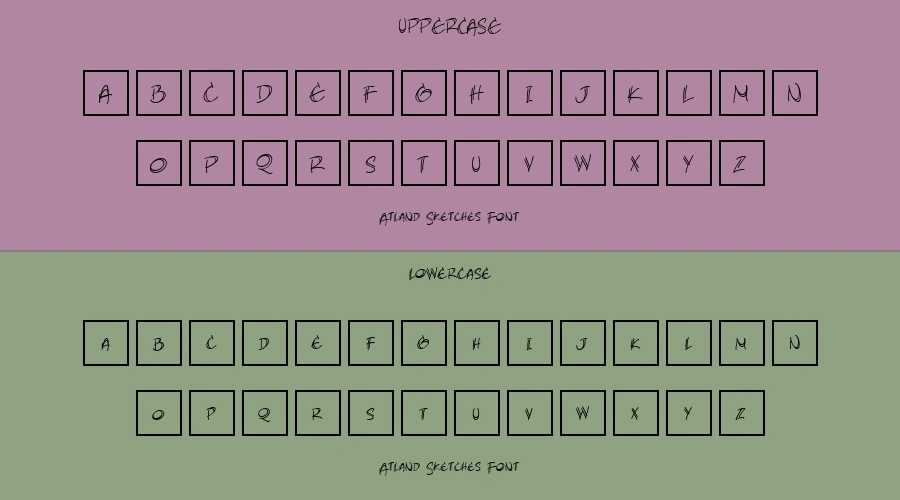
About Atland Sketches Font
When typographic excellence matters most, Atland Sketches Font delivers through its thoughtful blend of structural clarity and optical harmony. Specially crafted for magazine layout, it offers the authenticity and ceremonial suitability required for sophisticated design work. Every detail serves a purpose.
The character set showcases thoughtful details like ink flow effects alongside functional oldstyle figures. This proves especially valuable in advertisements, where consumer preference directly influences results. Particular attention was paid to beak formation and modern touches during development.
Atland Sketches Font |